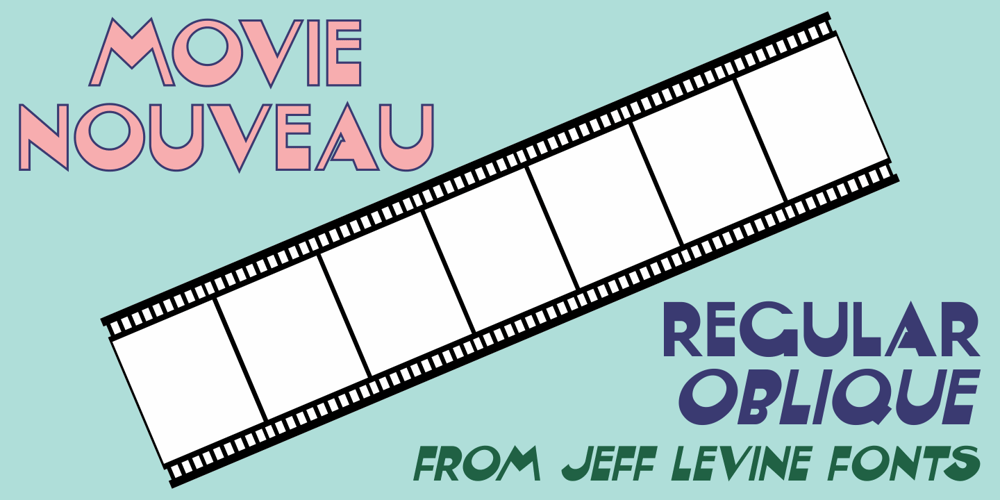
Movie Nouveau JNL Font Family was designed by Jeff Levine and published by Jeff Levine. Movie Nouveau JNL contains 2 styles and family package options. A 1920s magazine featuring behind-the-scenes stories about the motion picture industry had its name [“Shadowland”] lettered in an Art Nouveau sans serif style.This has been recreated digitally as Movie Nouveau JNL, and is available in both regular and oblique versions.